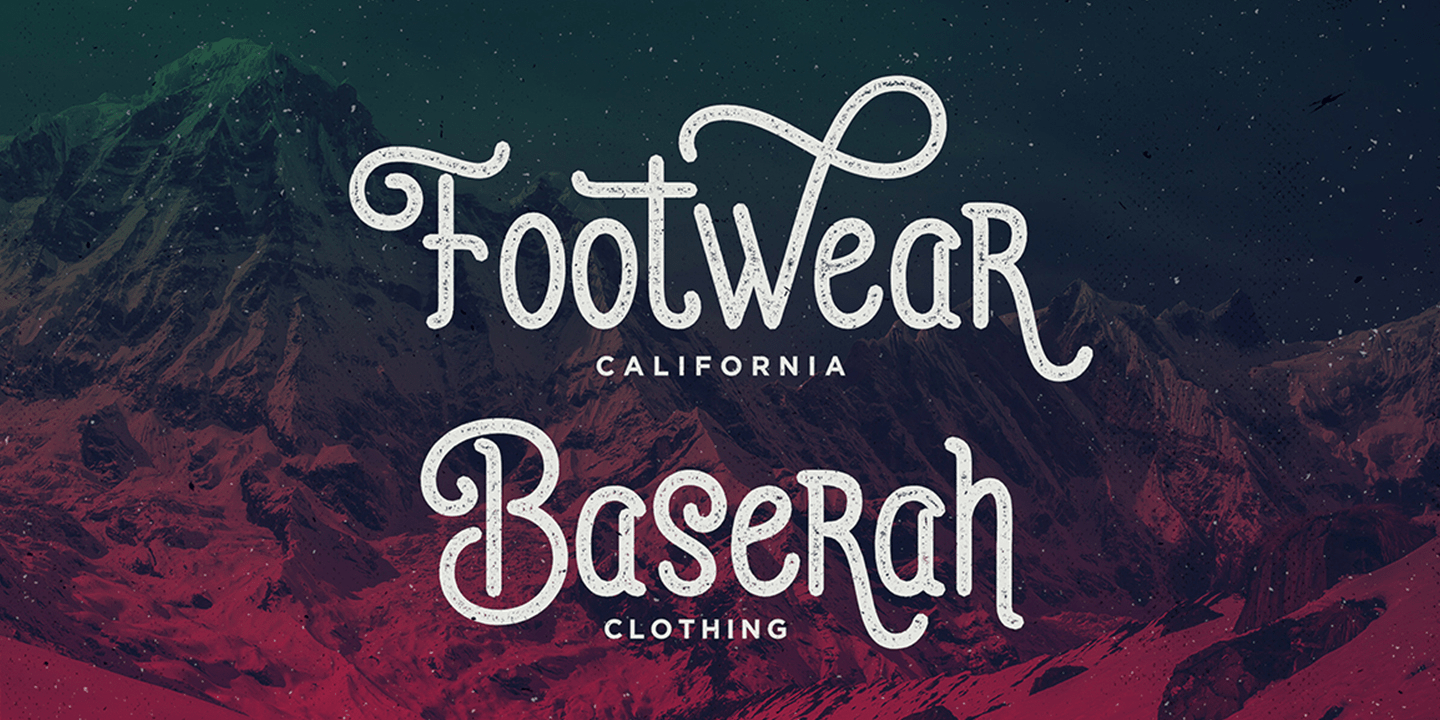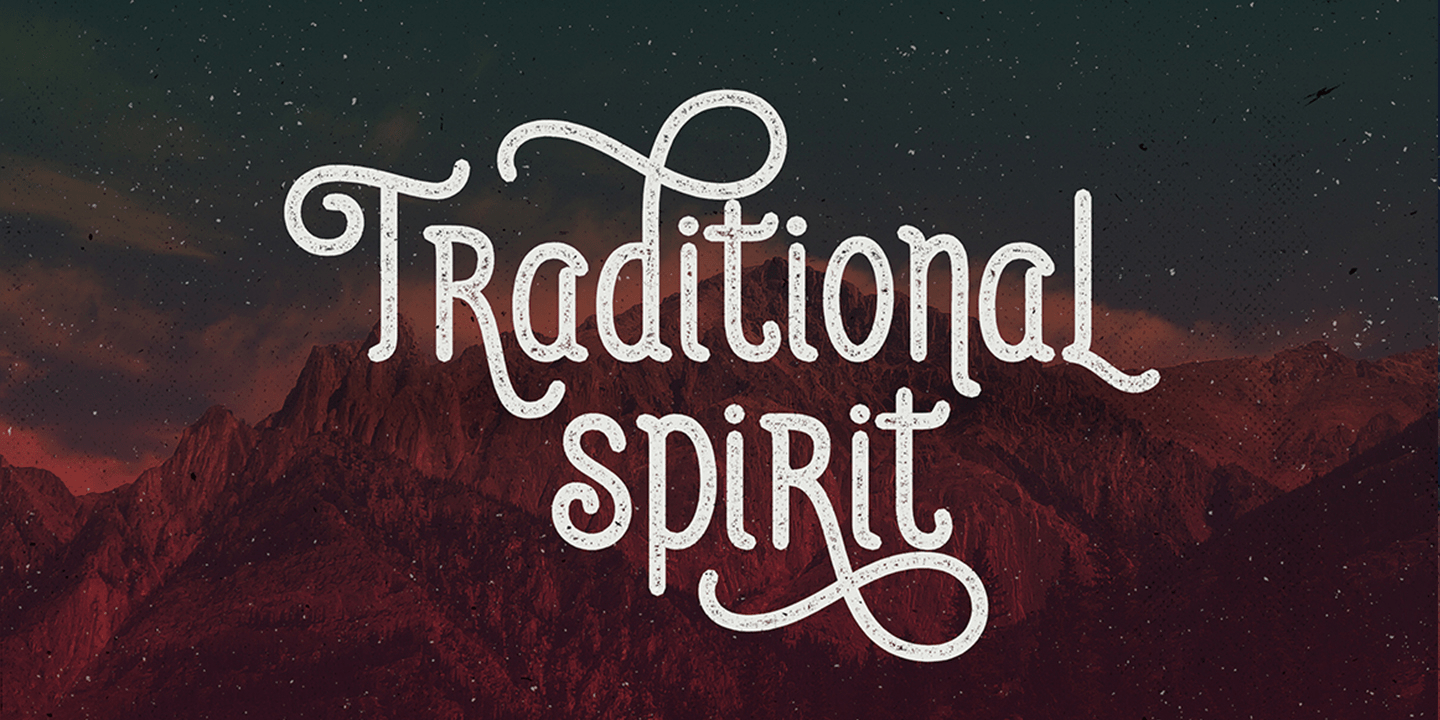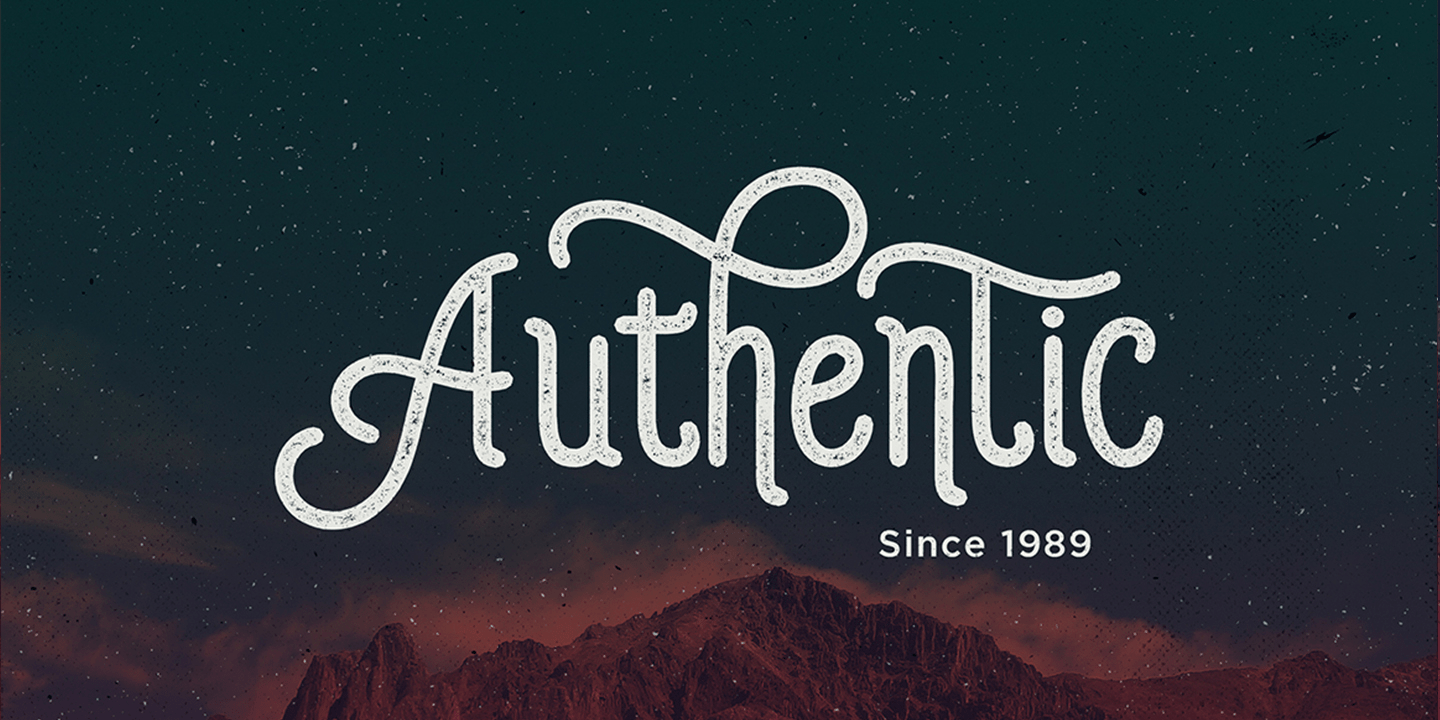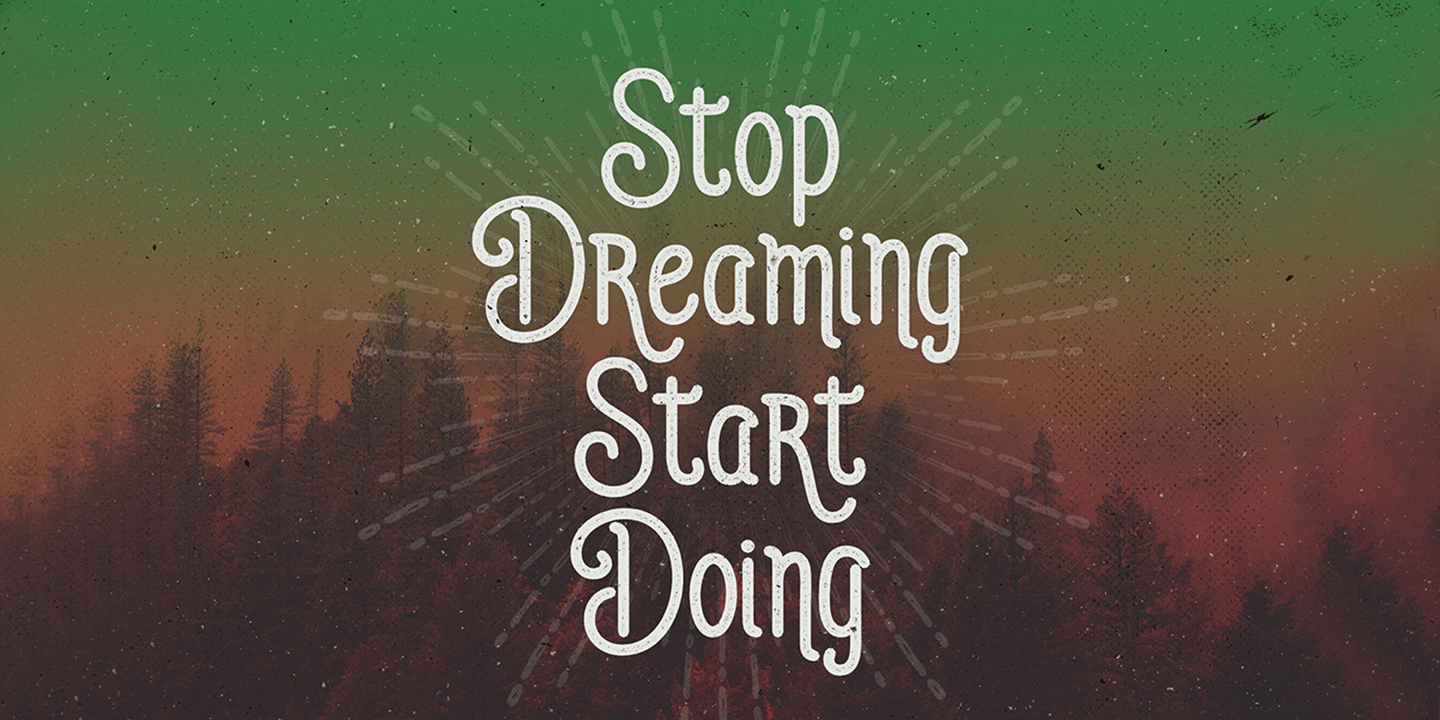
Auther Typeface
Auther Typeface is a modern & vintage monoline display typeface, combination with classic & modern style typeface. OpenType features with stylistic alternates, ligatures and multiple language support. You can use this font for various purposes such as logos, wedding invitations, t-shirts, posters, labels, greeting cards, letterhead, and book covers etc.